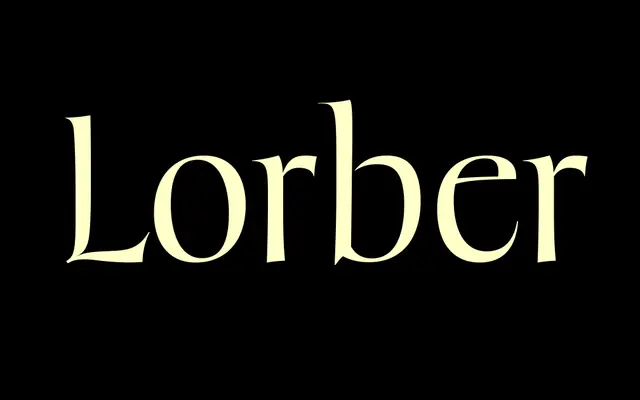
Lorber
A calligraphic script drawn from the 1961 book jacket lettering of overlooked midcentury designer Rosalind Lorber, currently a work in progress.
Signal's Lorber takes its forms from hand-lettering Rosalind Lorber produced for a Scribner's Book Club edition of The Forsyte Chronicles, rescued from relative obscurity after the foundry encountered her covers in thrift shops. Lorber worked for Random House, Scribners and other New York publishers through the mid-twentieth century, producing quietly accomplished calligraphic work that has gone largely undocumented. The typeface is currently available as a trial licence on request, with full release pending.
Based on the hand-lettering of a midcentury calligrapher, the typeface derives from informal cursive book jacket lettering, placing it firmly in the calligraphic script category.